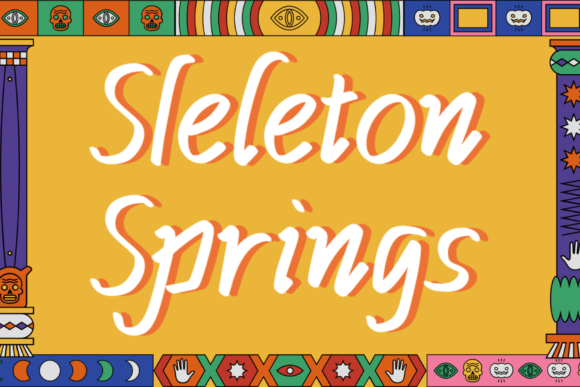
Skeleton Springs Font
Journey into the realm of the supernatural with Skeleton Springs font, the ultimate font for capturing the spine-tingling essence of Halloween. Inspired by the haunting beauty of skeletal forms, this font dances across your designs like a phantom, casting an eerie glow upon your creations.
Picture this: Your Halloween invitations adorned with the Skeleton Springs font, sending shivers down the spines of your guests as they anticipate the spooky festivities to come. Or, envision your haunted house decorations featuring this font, adding a touch of bone-chilling charm to the eerie displays. The possibilities are endless, and the results are hauntingly spectacular.
Skeleton Springs font is not just for Halloween enthusiasts; it's a versatile tool for designers and artists seeking a unique and eye-catching font. Its skeletal aesthetics lend a touch of whimsy to logos, branding materials, and even social media graphics. Let your creativity run wild as you explore the endless possibilities that Skeleton Springs font has to offer.
But wait, there's more! This font comes with a special surprise - the Skeleton Springs font offers an exclusive character set, featuring spooky elements like skulls, crossbones, and ghostly apparitions. Unleash your imagination and incorporate these elements into your designs for a truly haunting effect.
With Skeleton Springs font, you'll have the power to transform your designs into spine-tingling masterpieces. So, embrace the supernatural and let this font bewitch your creations, leaving an unforgettable mark on all who encounter it.